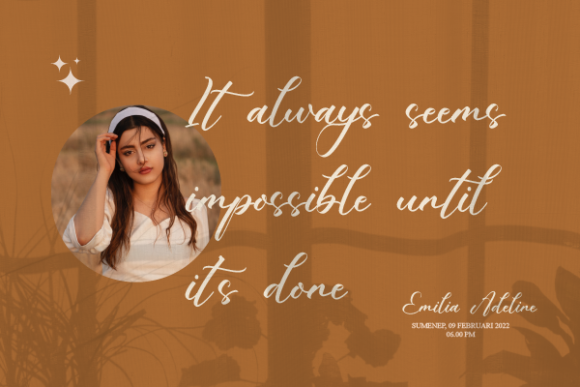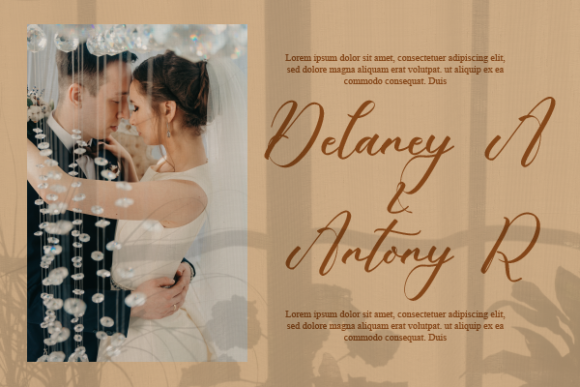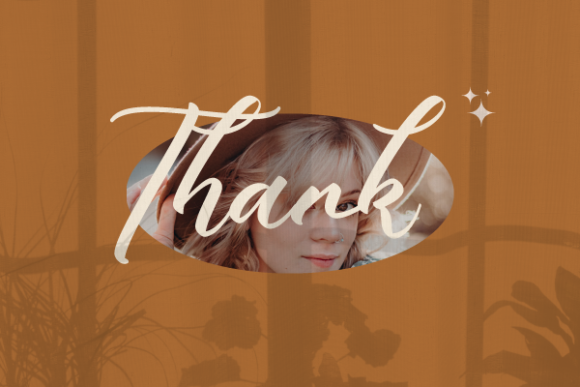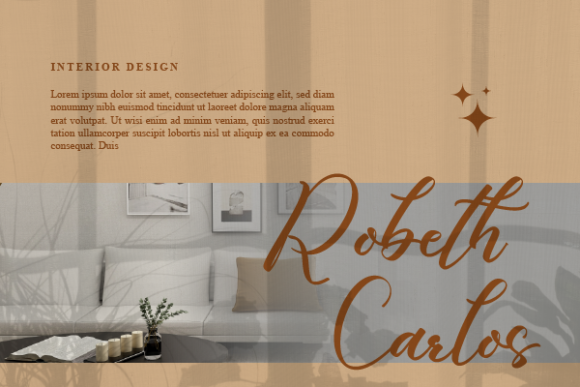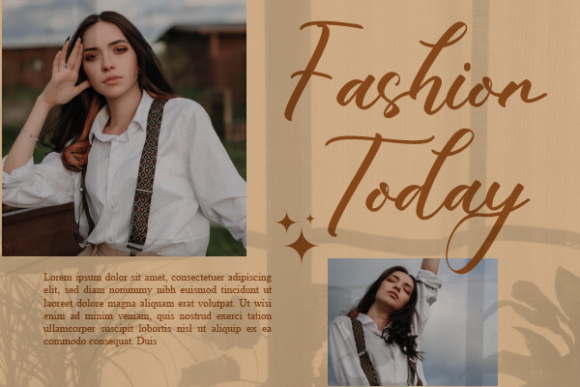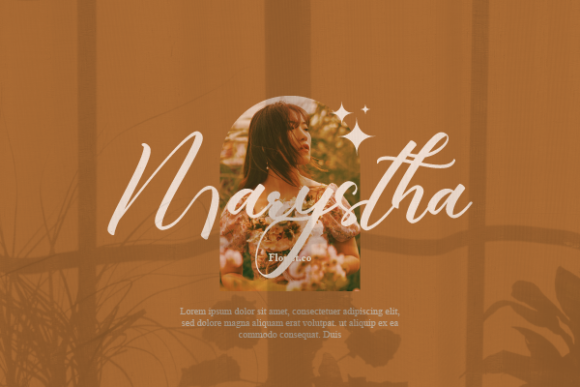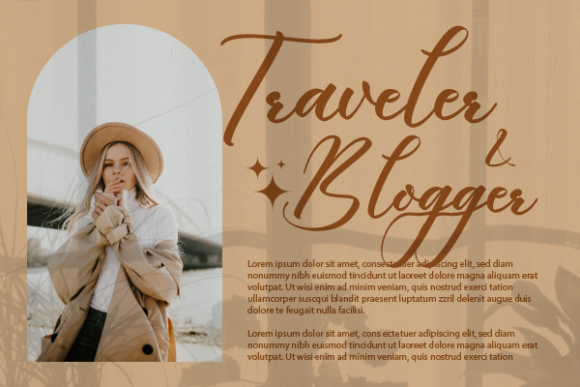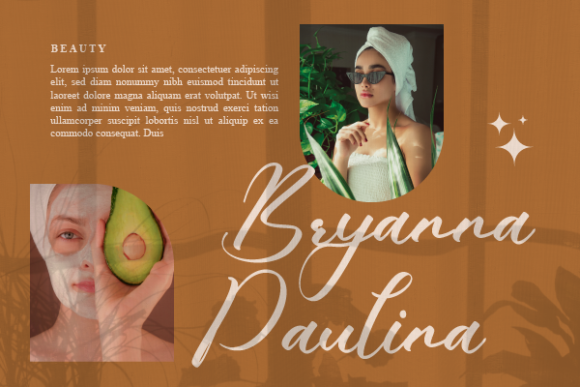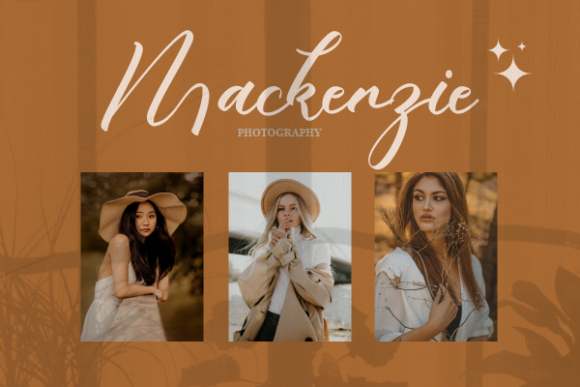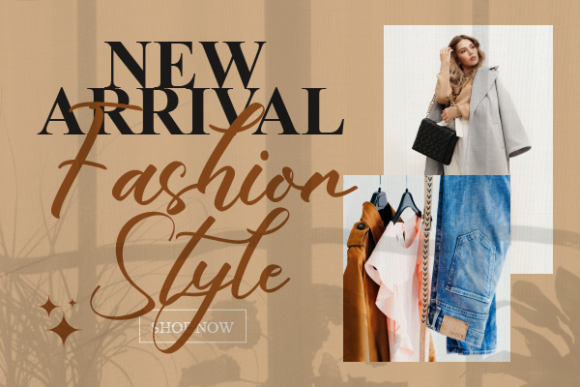
Chandler Nathalia Font
About Chandler Nathalia Font
Chandler Nathalia is a font that effortlessly captures the essence of charm and elegance, making it a perfect choice for a wide spectrum of design projects. Its exquisite and sophisticated appearance lends a touch of timeless beauty to a variety of creative endeavors, whether you’re crafting enchanting wedding invitations, expressing gratitude through thoughtful thank you cards, imbuing quotes with a sense of grace, or designing captivating logos and business cards that make a memorable impression.
The allure of Chandler Nathalia lies in its ability to seamlessly adapt to different design contexts, infusing each project with a personalized and customized touch. Its flowing letterforms and meticulously crafted details contribute to a sense of visual harmony, creating a captivating rhythm that draws the eye and engages the viewer.
Chandler Nathalia’s versatility shines through its broad applicability, allowing it to excel in a range of settings, from the romantic ambiance of wedding stationery to the professional polish of business cards. Its elegance and charm evoke a sense of sophistication that resonates with a diverse audience, making it a versatile asset for designers and creatives of all kinds.
Furthermore, Chandler Nathalia’s extensive range of glyphs and swashes, facilitated by its PUA encoding, empowers you to effortlessly incorporate decorative elements and intricate characters into your designs. This feature opens up a world of creative possibilities, enabling you to add unique touches that elevate your work to new levels of artistry and impact.
As you explore the enchanting appeal of Chandler Nathalia, you’ll discover its innate ability to transform ordinary design projects into extraordinary expressions of beauty and elegance. Its graceful curves, distinct ligatures, and refined style create a cohesive and captivating visual experience that resonates with viewers on a deeper level.
Incorporate Chandler Nathalia into your creative toolkit and witness how it elevates your design projects, infusing them with a sense of charm, sophistication, and personalized elegance. With its stunning aesthetic and PUA-encoded features, this font empowers you to create designs that leave a lasting impression and stand out in a sea of visual content.